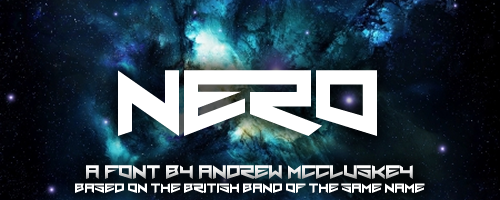
Font name: | Nero |
Based off of the original logo of British band Nero. http://thisisnero.com/ Intended primarily for Nero fan-stuff. Free for all use! nalgames.com |